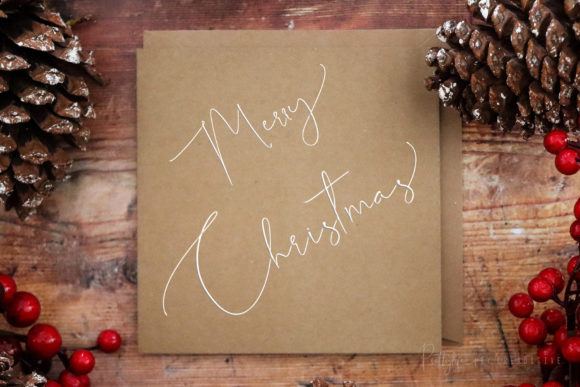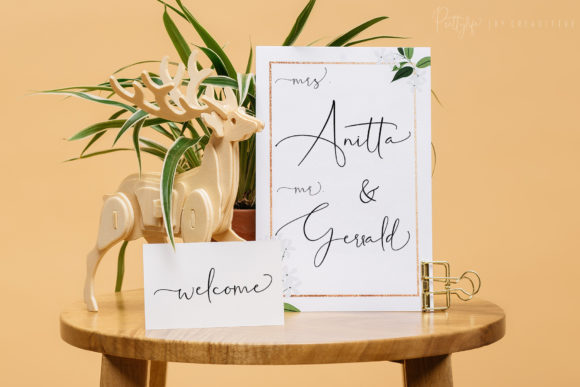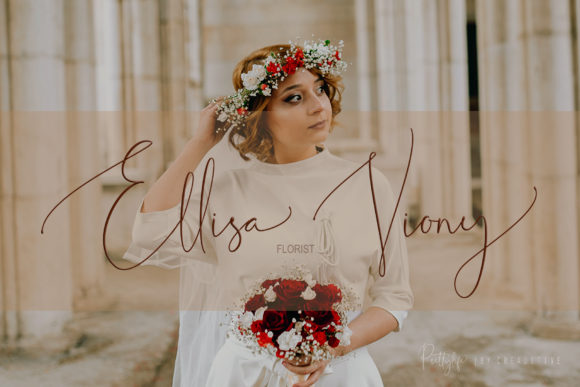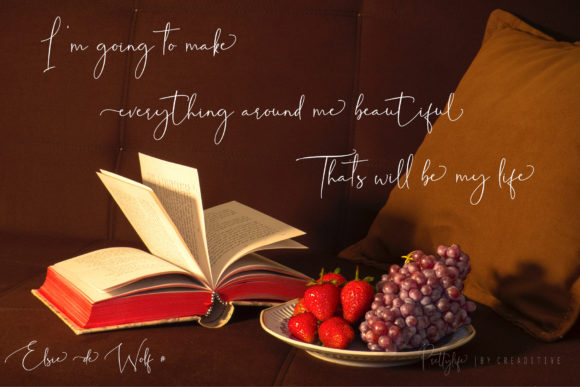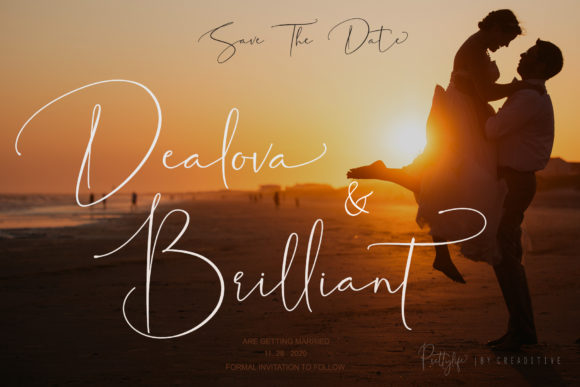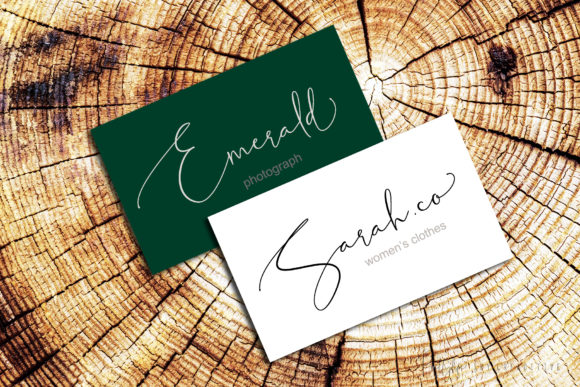
Introduction to Prettylife Font
Prettylife is a stylish and delicate handwritten font.
It has a clean, thin and smooth vibe and it will be a hit for any design that you want to add it to It is suitable for any branding, product packaging, invitation, quote, t-shirt, label, poster, logo that you wish to develop.